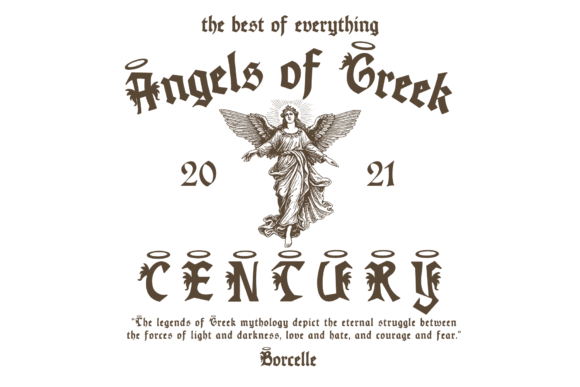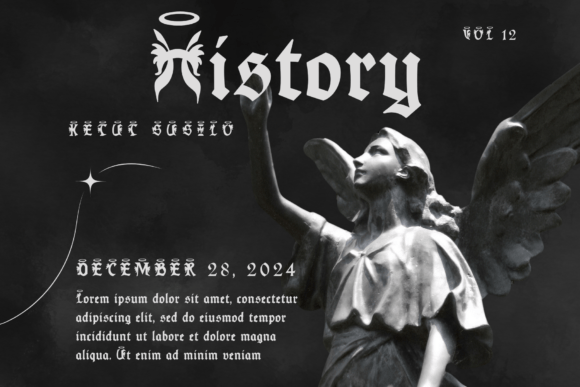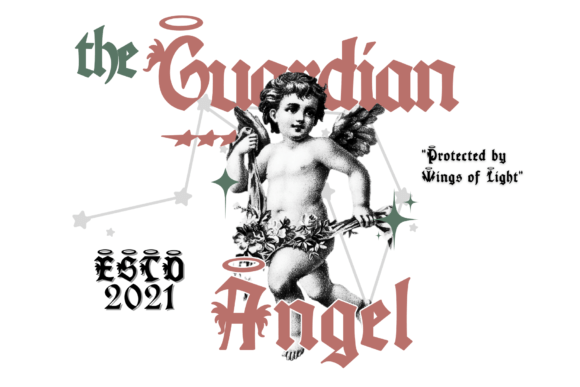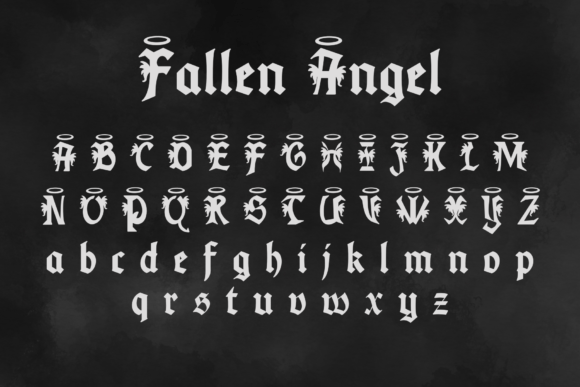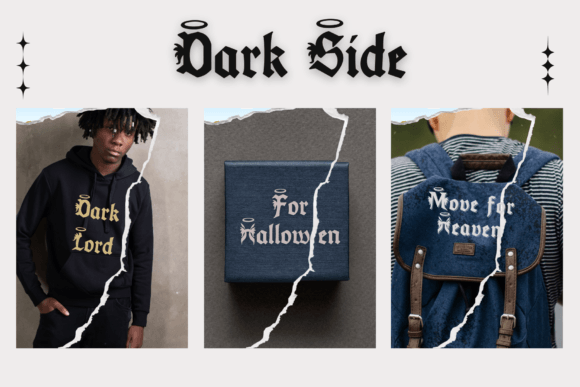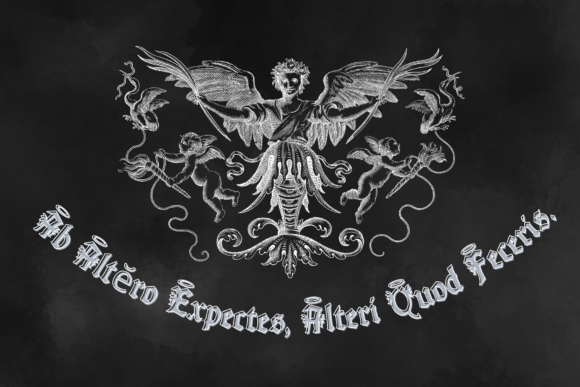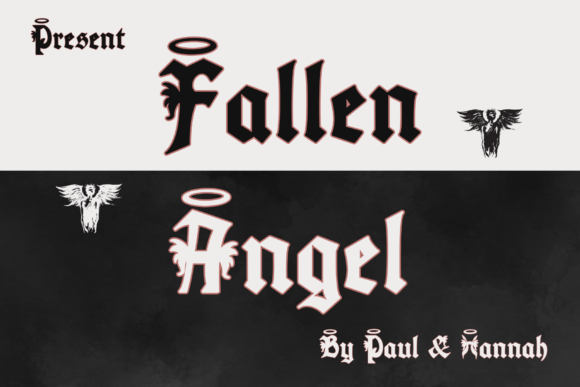
Fallen Angel Font: A Symbol of Strength and Darkness
The Fallen Angel Font is a unique and captivating typeface that draws inspiration from the circular symbol often associated with angels. However, this font takes a darker and more aggressive approach, reflecting the idea of a fallen angel. In this article, we’ll explore the concept behind this font, its design elements, and how it can be used in various design projects.
The Concept of Fallen Angel Font
The Fallen Angel Font is built around the idea of contrasting the traditional notion of angels as benevolent and gentle beings. The designers aimed to create a font that exudes strength and fierceness, while still maintaining the essence of the angelic symbol. The result is a font that embodies the concept of a fallen angel, one that has been cast out of heaven and now radiates a sense of darkness and power.
Design Elements
The Fallen Angel Font features a range of design elements that contribute to its distinctive look and feel. The circular symbol that inspired the font is still present, but it’s been transformed to convey a sense of intensity and boldness. The lines are thicker and more rugged, giving the font a strong and edgy appearance. The overall design is balanced, with a mix of smooth and sharp edges that add to the font’s visual interest.
Key Features of Fallen Angel Font
- Unique Symbol Inspiration: The font’s design is inspired by the circular symbol often associated with angels, but with a darker and more aggressive twist.
- Bold and Edgy: The font features thick lines and rugged edges, giving it a strong and fierce appearance.
- Balanced Design: The font’s design is balanced, with a mix of smooth and sharp edges that add to its visual interest.
- Versatile: The Fallen Angel Font can be used in a variety of design projects, from logos and branding to posters and t-shirts.
Using Fallen Angel Font in Design Projects
The Fallen Angel Font is a versatile typeface that can be used in a range of design projects. Here are some ideas for using this font:
- Logo Design: The Fallen Angel Font can be used to create a bold and eye-catching logo for a brand or business.
- Branding: The font’s unique design makes it perfect for branding projects that require a strong and memorable visual identity.
- Poster Design: The font’s bold and edgy design makes it ideal for posters and flyers that need to grab attention.
- T-Shirt Design: The Fallen Angel Font can be used to create striking and memorable t-shirt designs.
Tips for Working with Fallen Angel Font
Here are some tips for working with the Fallen Angel Font:
- Use it sparingly: Due to its bold and edgy design, it’s best to use the Fallen Angel Font sparingly to avoid overwhelming the viewer.
- Pair it with contrasting fonts: Pair the Fallen Angel Font with contrasting fonts to create visual interest and balance.
- Experiment with colors: The font’s design looks great in bold and bright colors, so don’t be afraid to experiment with different color schemes.
The Fallen Angel Font is a unique and captivating typeface that offers designers a bold and edgy design solution. With its inspiration from the circular symbol of angels and its darker, more aggressive twist, this font is perfect for designers and crafters looking to add a touch of strength and fierceness to their projects. Whether you’re working on a logo, branding, poster, or t-shirt design, the Fallen Angel Font is definitely worth considering.